Are you ready to make your hand crafted design project to the next level with these bold and chunky brush fonts? Here we have gathered a collection of more as 35 free and premium real brush fonts for your design project. Add a hand paint elements to your artwork and use these fonts for your artistic design without any doubts. Keep a good mood and enjoy!
Stiverx (Free)
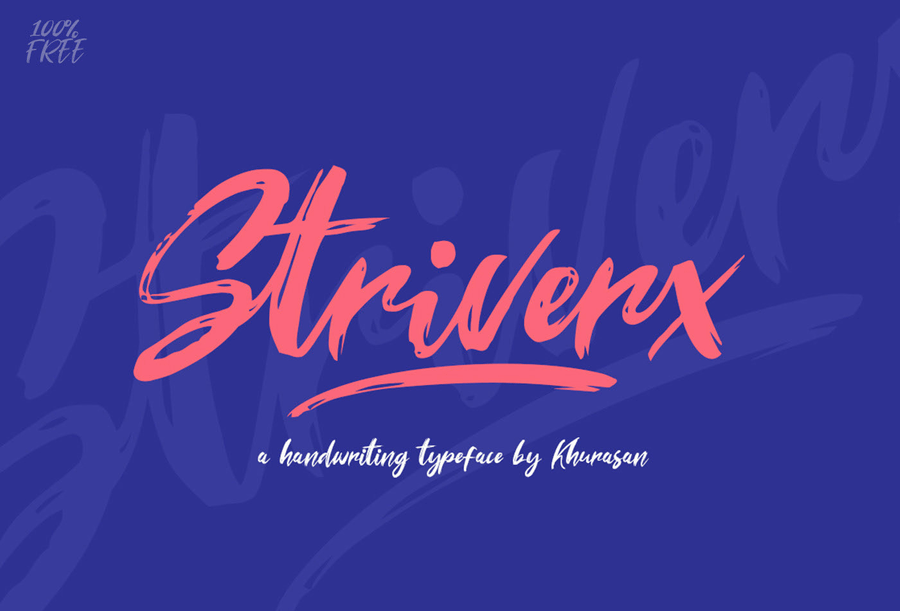
It is an eye-catching brush script font. It contains uppercase and lowercase letters, numbers, symbols and supports multilingual. Stiverx is ideal for ads, logos, branding, headlines, quotes, posters, cards, print, greeting cards, quotes, signatures, wedding invitations and etc
Hamsterly
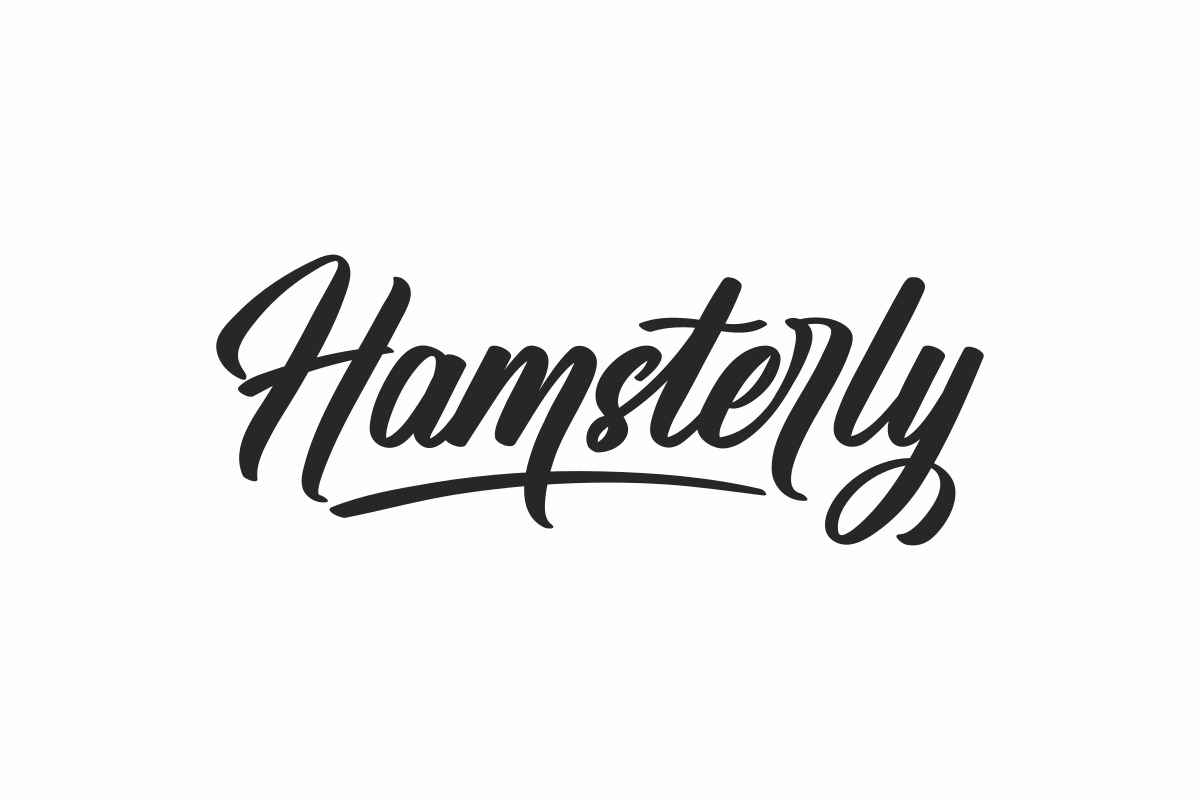
Hamsterly is a calligraphy hand lettering font. Perfect for lettering, text logos, wedding, flyers, posters and etc.
Blackhawk
With extra attention to quick strokes and sharp details, Blackhawk is guaranteed to deliver a loud & fast-paced message. Ideal for logos, apparel, quotes, product packaging and etc.
Necks (Free)
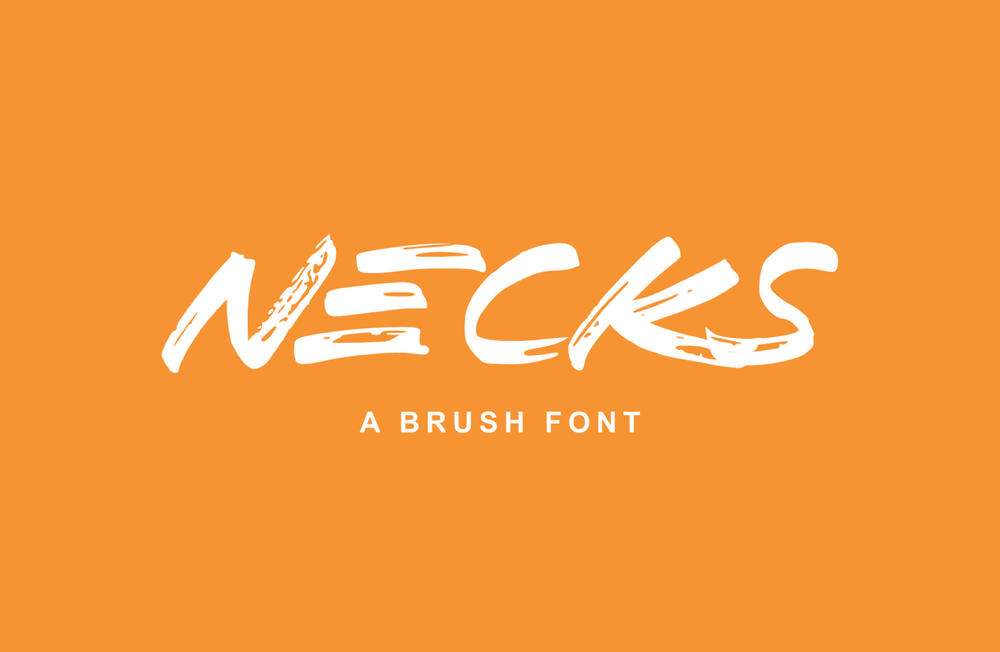
It is a free bold hand lettered display font. This highly legible brush font is great for a variety of creative projects.
Grayson (Free)
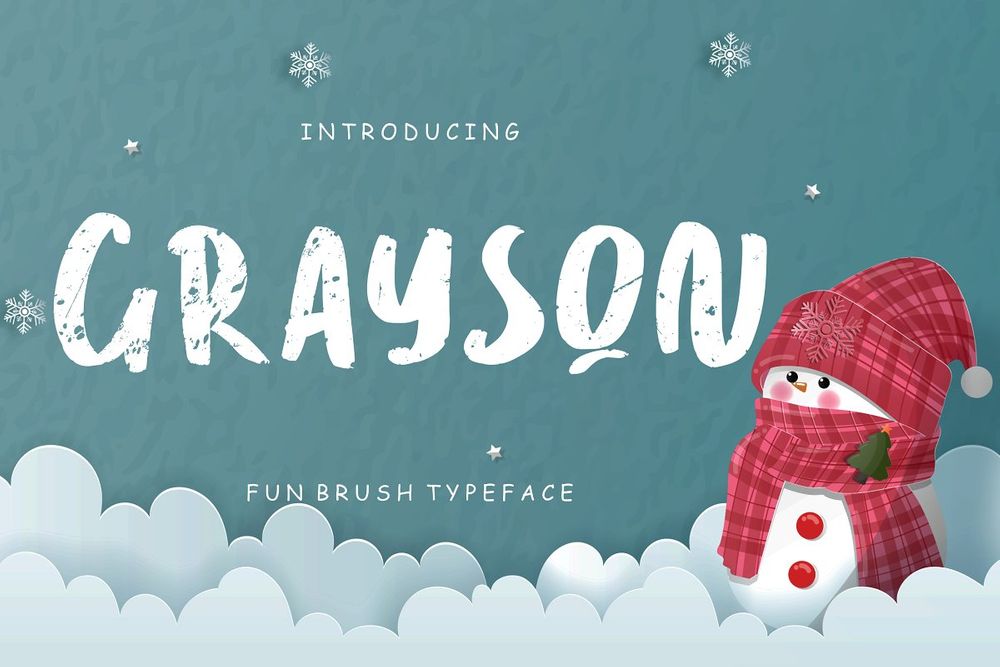
Grayson is a fun brush font for children, kindergarten and holiday designs. Perfect for branding projects, logo, wedding designs, social media posts, advertisements, product packaging, product designs, label, photography, watermark and etc.
Andria Styluz (Free)
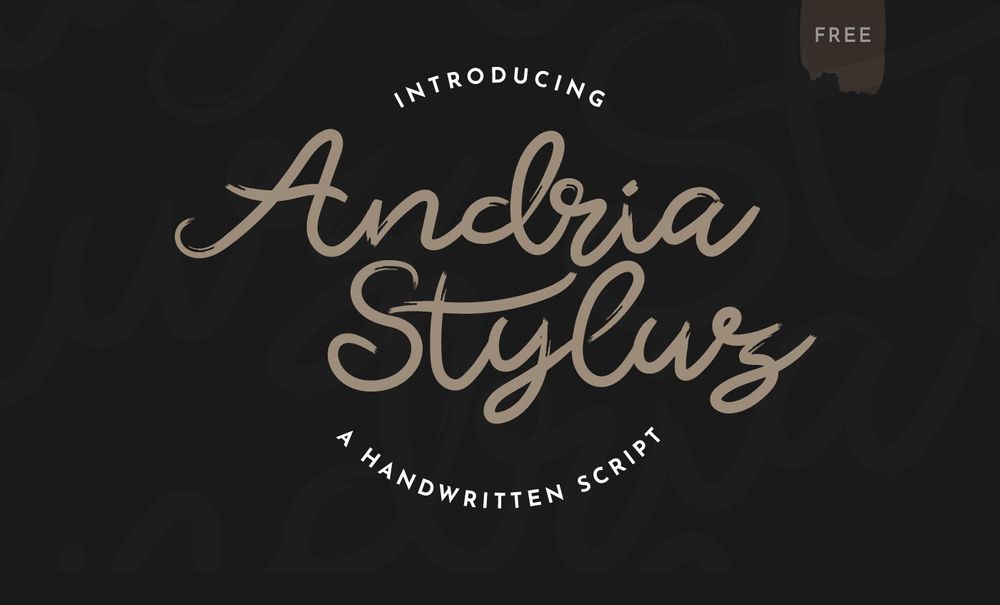
It is a free handwritten brush font for your design needs. Perfect for display, greeting cards, branding materials, business cards, quotes, wedding cards, logo, stationery, online marketing, magazines and etc.
Brushed Traveler (Free)
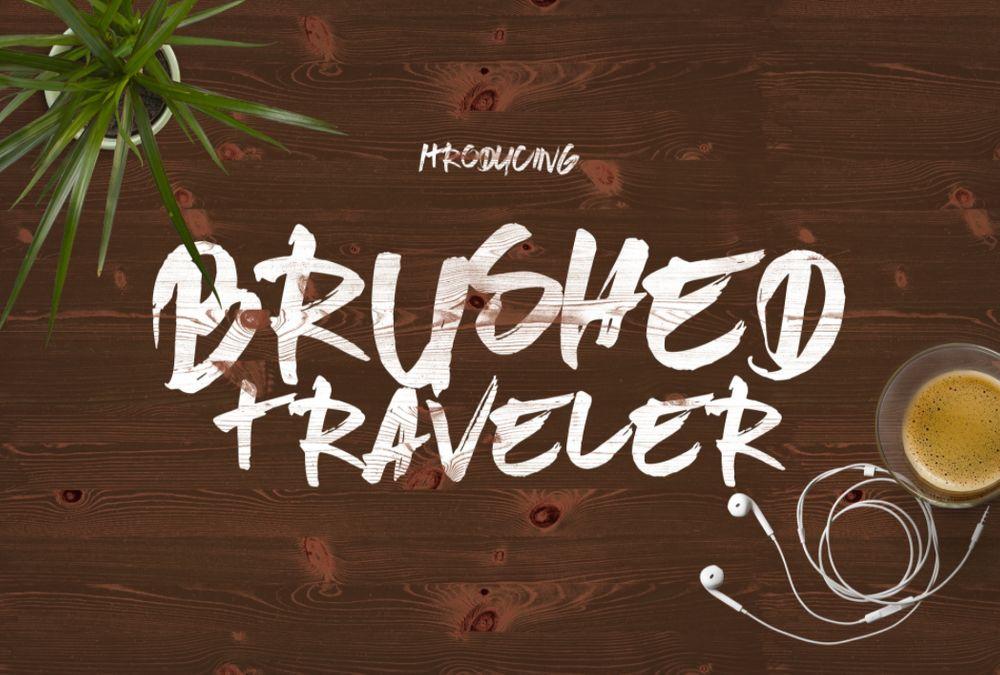
It is a handwrited free brush font to cover all your design needs. Perfect for wedding, event, t-shirt, logo, badges, sticker, and awesome work about summer.
Raventame (Free)
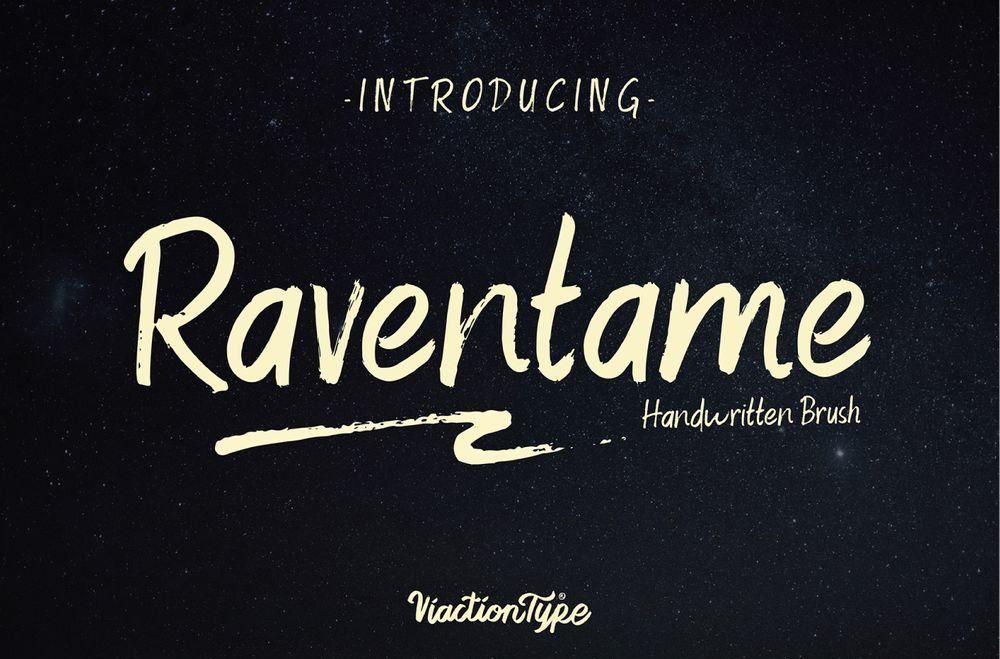
Raventame features an original handwritten brush style. It is ideal for boutique brands, photography logos & quotes, magazines, posters and much more.
Goshbe (Free)
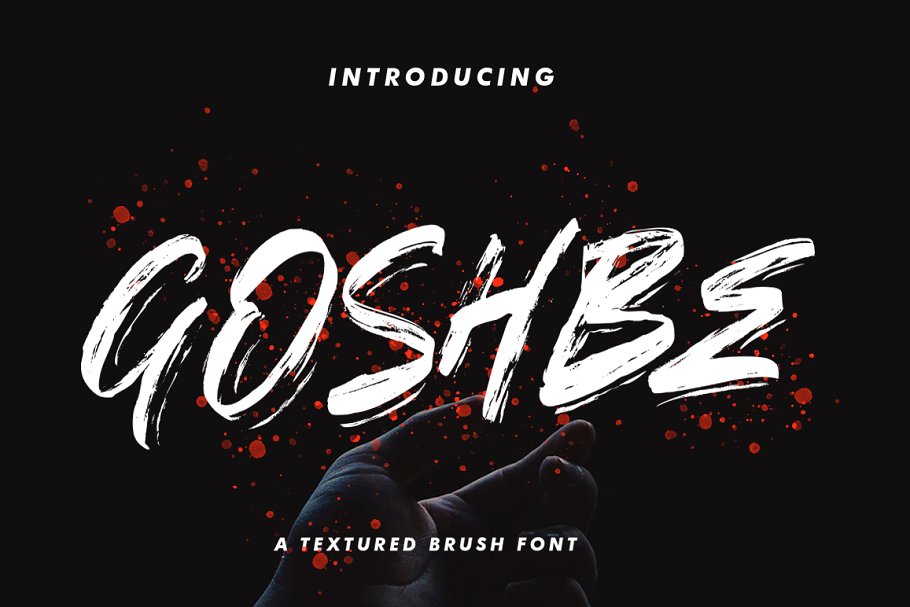
It is a bold and innovative font which combines attractive curves with a fresh urban edge. Perfect for invitations, monograms, wedding, fashion, signature, stationery, quotes, magazine or book cover, website header, logo and etc.
Pondspell
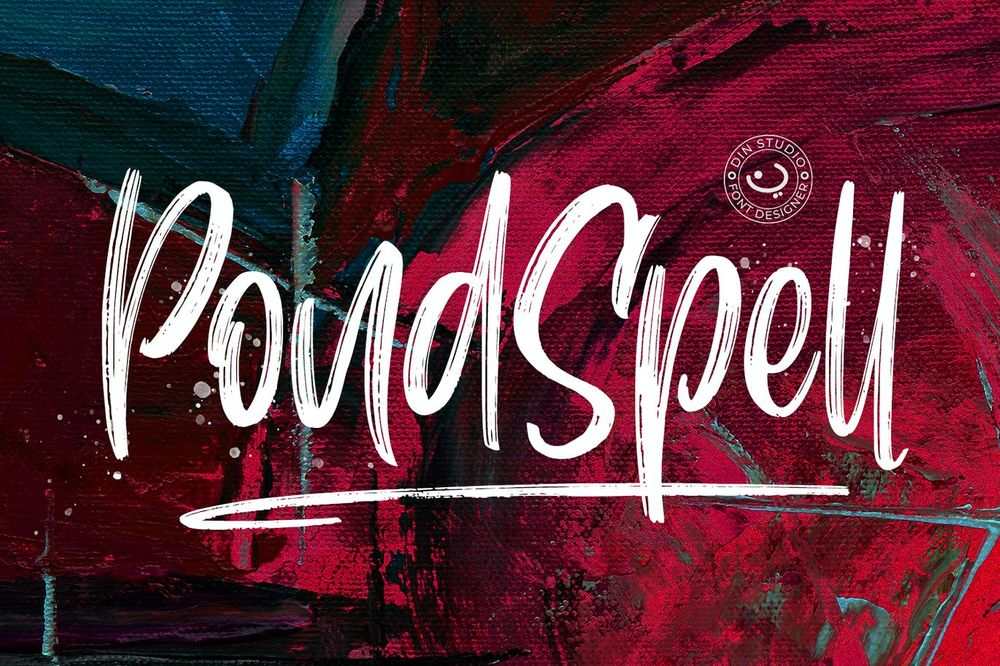
It is a brush font, made with naturally brush. The texture from the brush font will make your design more beautiful and powerful. Ideal for any design like branding, quotes, book title and etc.
Marquetta
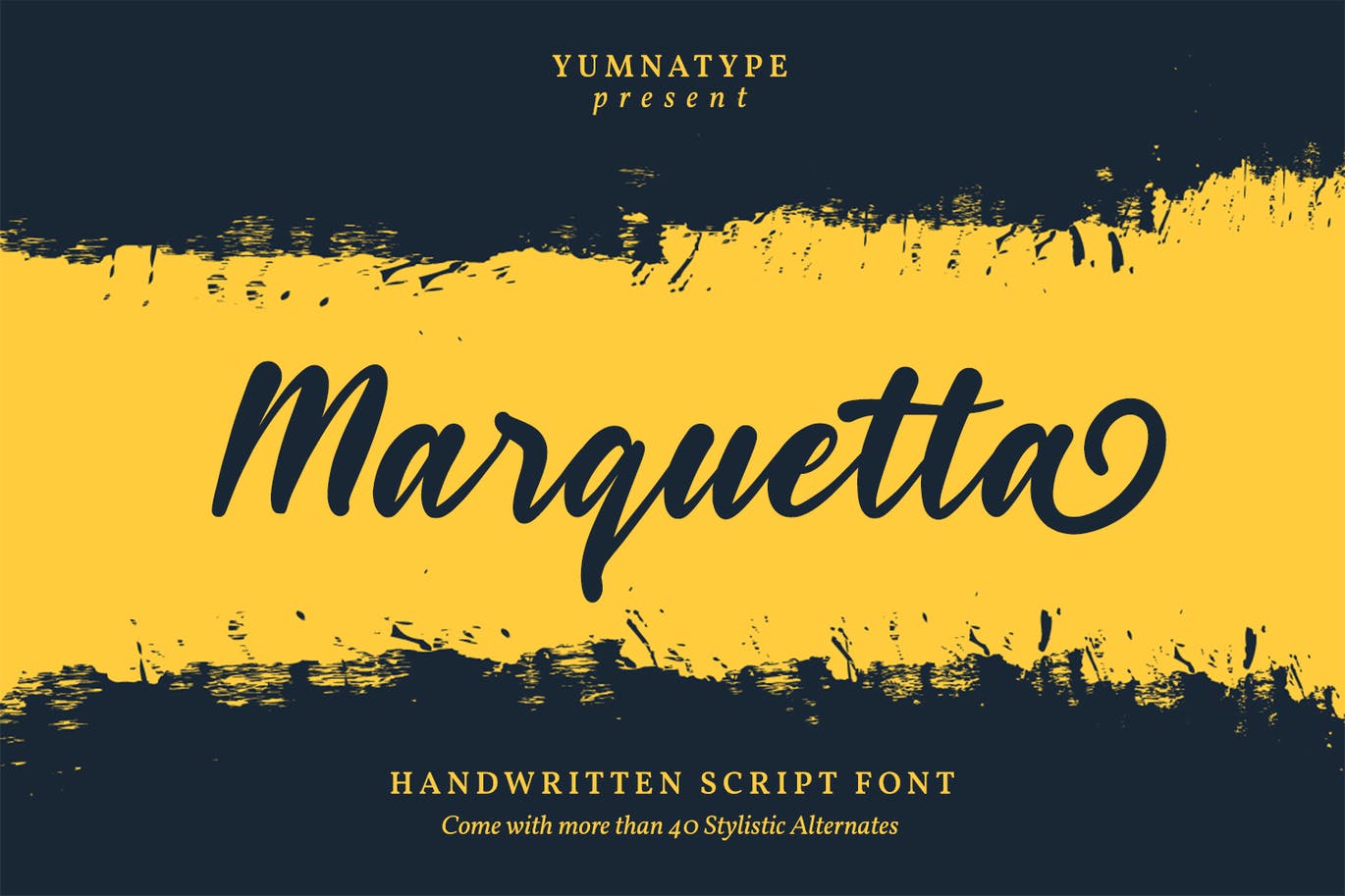
It is a modern handwritten font. With a classy and natural handwritten style, it brings a chic typeface. Marquetta is perfect for weddings, branding, logotype, quotes and etc.
Thristina
It is a brush typeface which can make your text appear elegant, luxurious, and modern. Perfect for branding projects, logo, wedding designs, social media posts, advertisements, product packaging, tshirt design, product designs, label, photography and etc.
Loneliness
It is a brush font with a calligraphy style, So beautiful on invitation like greeting cards, branding materials, business cards, quotes, posters, and etc.
Staychill
It is unique textured brush font, contemporary approach to design, handmade natural with an irregular baseline. Suitable for use in title design such as apparel, invitations, books tittle, stationery design, quotes, branding, logos, greeting card, t-shirt and etc.
Bubarz
It is a bold brushed font with strong characted. Ideal for packaging, headline, poster and urban events.
Aviliator
Give your designs an authentic brush handcrafted feel. This font is perfectly suited to stationery, logos and etc.
Euthen
Give your designs an authentic brush handcrafted feel. This font is perfectly suited to stationery, logos, packaging and etc.
Italiano
Font bursting with energy, quick strokes and sharp edges. Ideal for loud messages. Great to use for logos, name tags, handwritten quotes, product packaging, merchandise, social media, greeting cards and etc.
Mubenk (Free)
This free font is created with a powerful brush style. Great to use as title, poster, logo branding, cover art and etc.
Valden (Free)
This free font has only capital letters and is great for your typography project with a strong attitude. Use as headline, poster, logo branding, cover art, poster and etc.
Sebats (Free)
Sebats fonts can be utilized to create designs with certain themes that require powerful and chunky free fonts. Ideal for logos, t-shirt, posters, greeting cards and etc.
Boldace (Free)